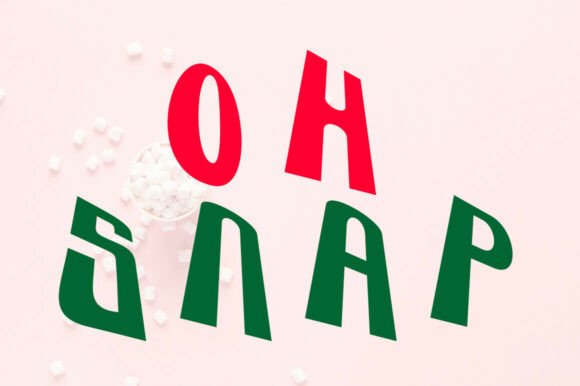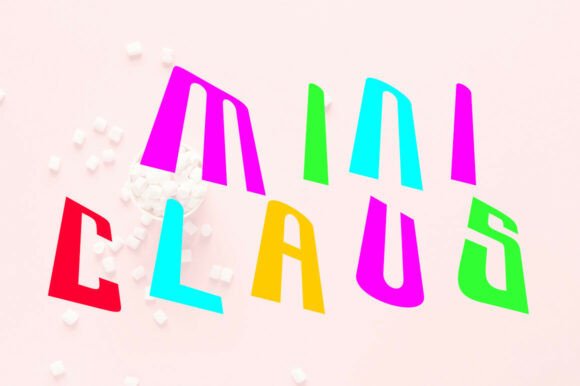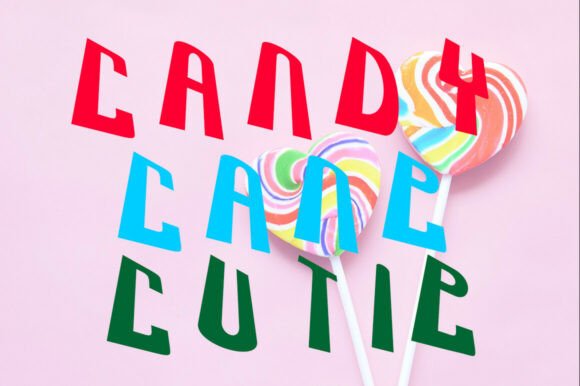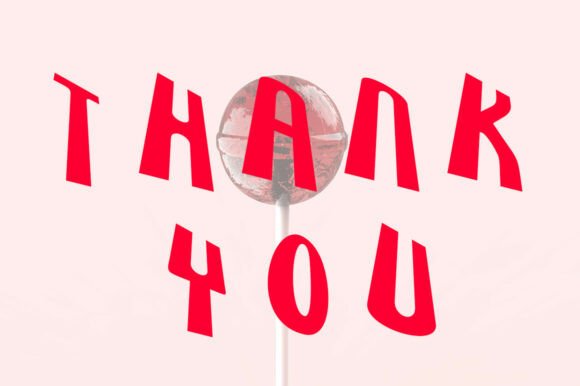
Get Ready to Add a Splash of Personality to Your Designs
Who hasn’t had one of those moments where a burst of creativity strikes, and you can’t wait to bring your idea to life? The blank page stares back at you, and suddenly, a font springs to mind that perfectly captures the essence of your vision. For many designers, that font is the Funky Split Font – a quirky display font that embodies playfulness and authenticity.
Whether you’re working on a blog post, logo, or advertisement, the Funky Split Font is the perfect addition to elevate your design. Its unique style and versatility make it an invaluable tool for designers, allowing you to add a touch of personality to any project. By incorporating the Funky Split Font into your designs, you can create visually striking and memorable pieces that truly stand out.
Funky Split Font Key Features
- Font Style: Funky, Split Font Design
- Unique Characteristics: Distinctive split design, perfect for creating a bold and eye-catching visual effect
Funky Split Font Review
Overall, I’m quite impressed with the Funky Split Font. ✨ It has a unique, playful vibe that’s perfect for any project that needs a bit of whimsy. The font is well-suited for titles, headings, and other text elements where you want to add some visual interest.
- Highly customizable: The Funky Split Font offers a wide range of options for adjusting the split effect, allowing you to fine-tune the look to suit your project’s needs.
- Well-suited for digital use: The font is optimized for digital displays, making it a great choice for websites, apps, and other digital projects.
- Cross-browser compatible: I’ve tested the font in multiple browsers and haven’t encountered any issues with compatibility.
However, there are a few limitations to consider: ⚠️
- Not ideal for body text: While the Funky Split Font is great for titles and headings, it may be too distracting for large blocks of body text.
- Limited language support: I’ve only tested the font with English text, so it’s unclear how well it will perform with other languages.
Overall, I’d give the Funky Split Font 4 out of 5 stars. It’s a unique and versatile font that’s perfect for projects that need a bit of flair. While it may have some limitations, it’s a great addition to any designer’s toolkit.
Some tips to get the most out of Funky Split Font include:
- Using it for titles and headings to add a touch of fun and creativity.
- Combining it with other fonts to create a unique and eye-catching design.
- Adjusting the font size and color to make it stand out in your design.
Common use cases for Funky Split Font include:
- Party invitations and decorations.
- Music festival and event branding.
- Food and drink menus.